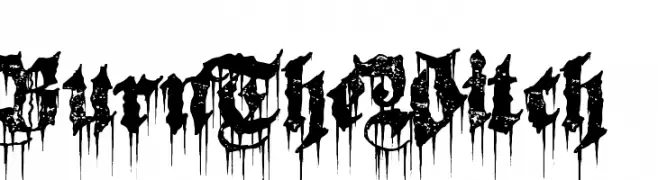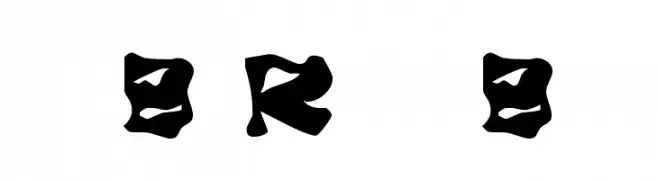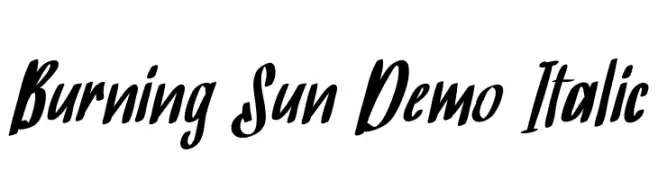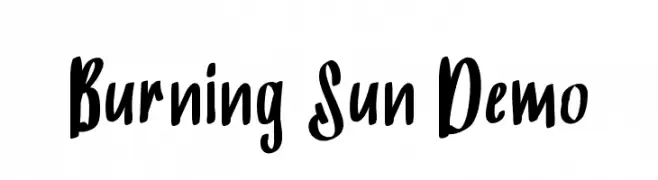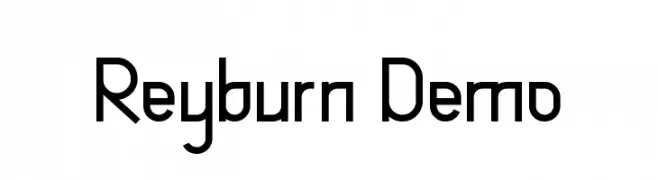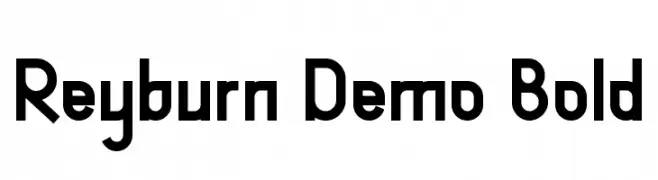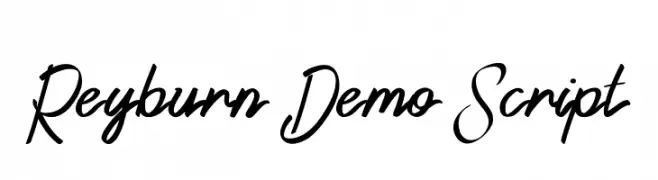
A bold, gothic font with dripping, textured elements and a blackletter style.
A modern, geometric font with rounded edges and balanced character spacing.
A bold, textured font with a dynamic, melting appearance.
A bold, italicized handwritten font with a dynamic and expressive style.
A bold, brush-style handwritten font with dynamic and playful characters.
A lively, handwritten font with fluid strokes and a playful style.
A geometric, modern font with bold, structured uppercase and rounded lowercase letters.
A bold, geometric font with a modern and structured design.
An elegant, flowing script font with a handwritten style.